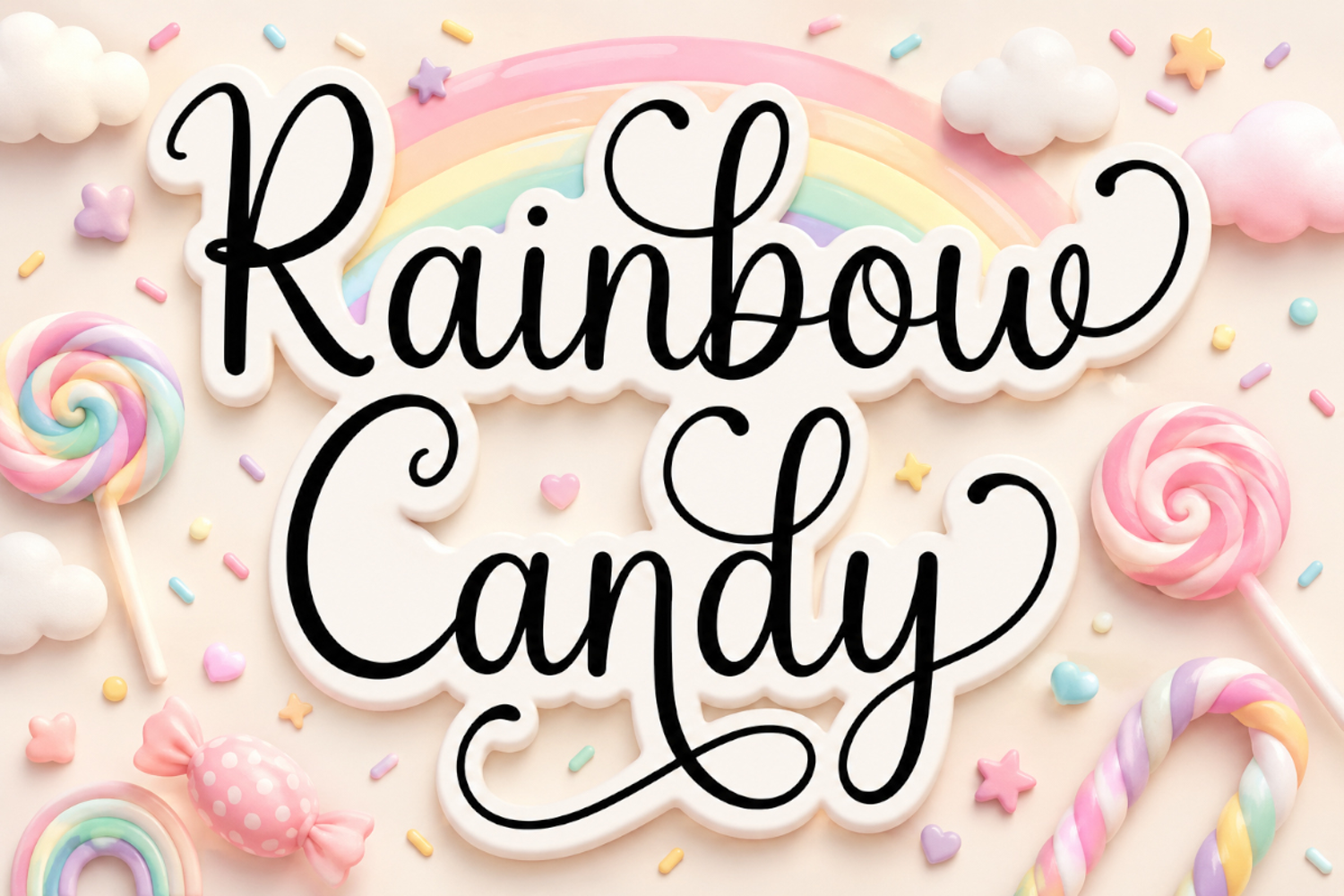
Rainbow Candy
Rainbow Candy is a sweet, playful, and charming handwritten script font inspired by happiness, imagination, and colorful childhood memories. Featuring smooth strokes, elegant swashes, and a friendly handcrafted look, Rainbow Candy is perfect for nursery decor, baby products, birthday invitations, mugs, t-shirts, tote bags, stickers, sublimation projects, and creative branding. Its cheerful personality makes every design feel warm, fun, and full of joy.
Rainbow Candy